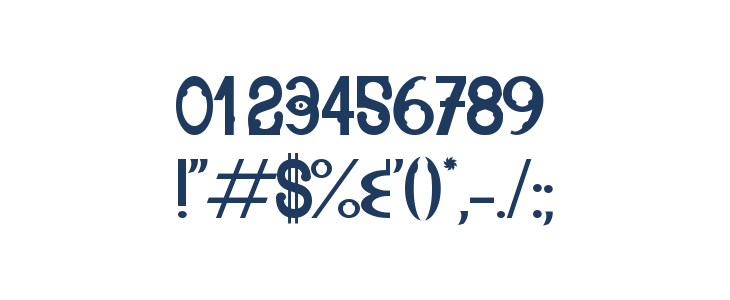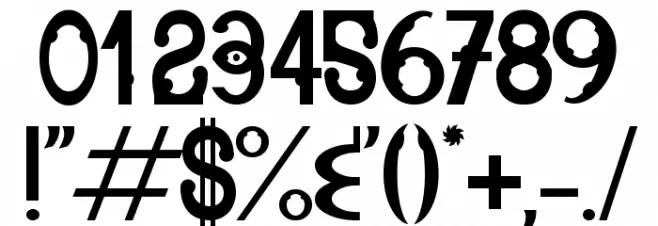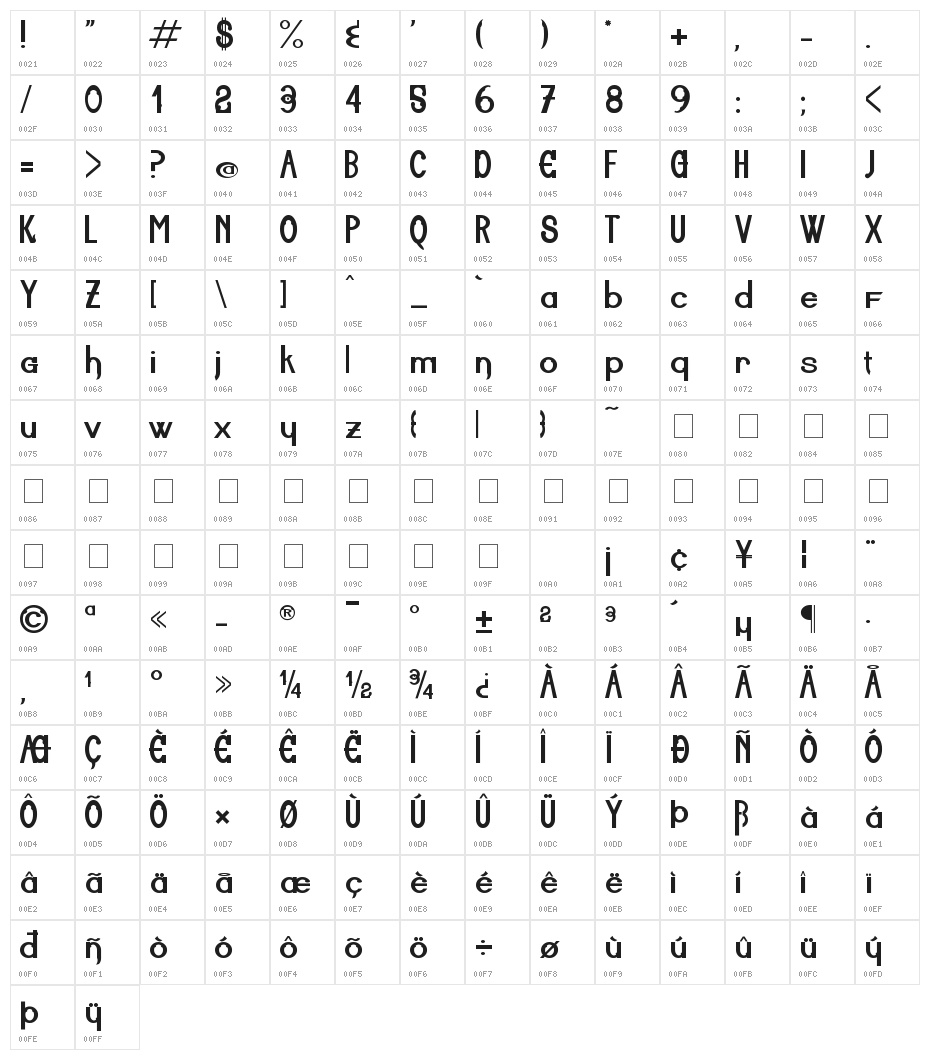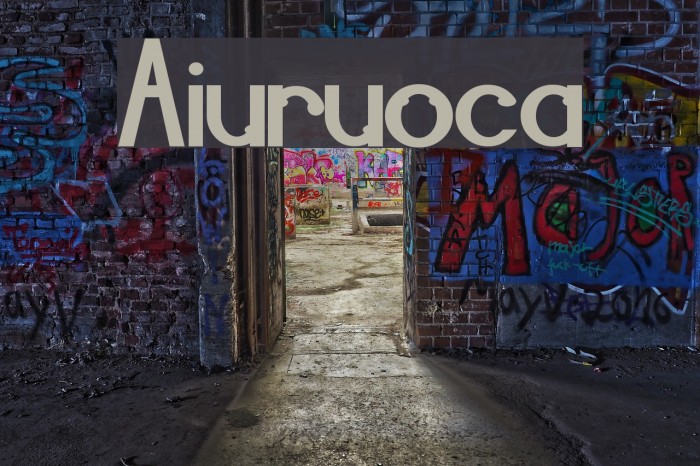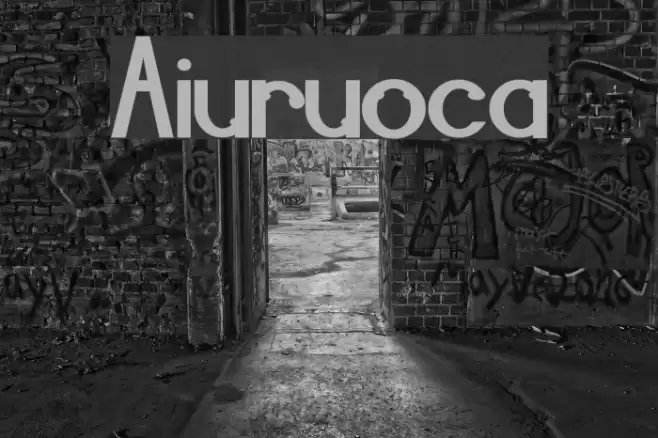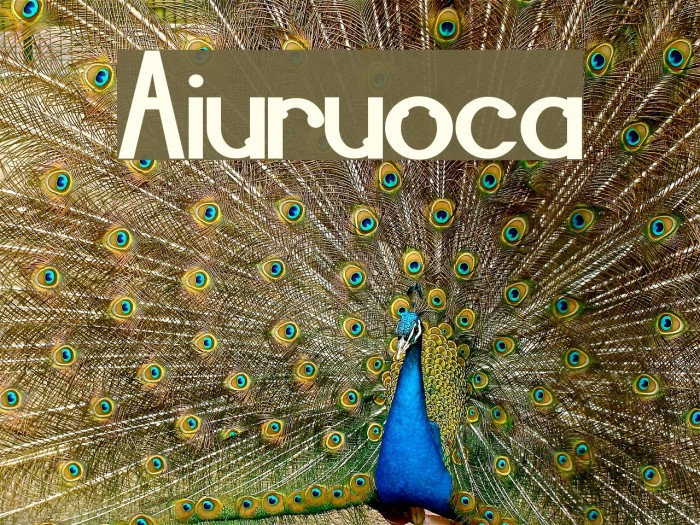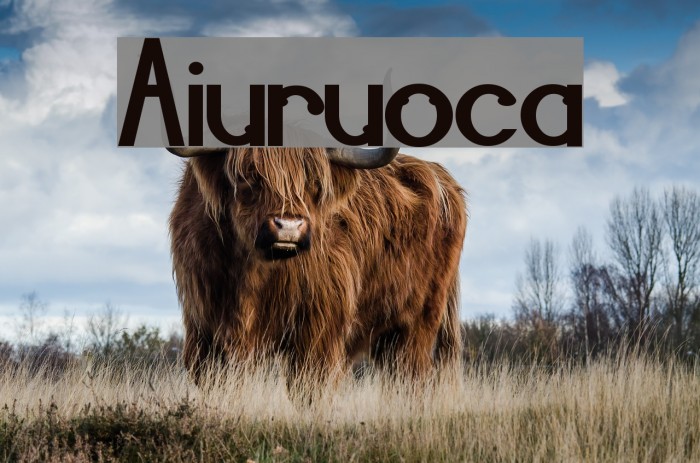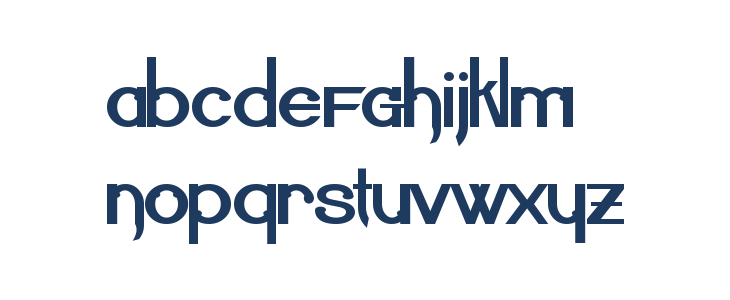
Aiuruoca Font
Aiuruoca Description
This font features a bold and striking design with a modern, geometric aesthetic. The uppercase letters are characterized by their tall, narrow forms and sharp angles, creating a sense of strength and stability. The lowercase letters maintain a consistent style, with rounded edges that contrast the angular uppercase, adding a touch of softness. Numbers are bold and easily readable, while the special characters are uniquely styled to match the overall design. The font's distinct appearance makes it suitable for eye-catching headlines and branding projects.
| Proposed Projects | Perfect for branding, poster design, and any project requiring a modern, impactful typeface. |